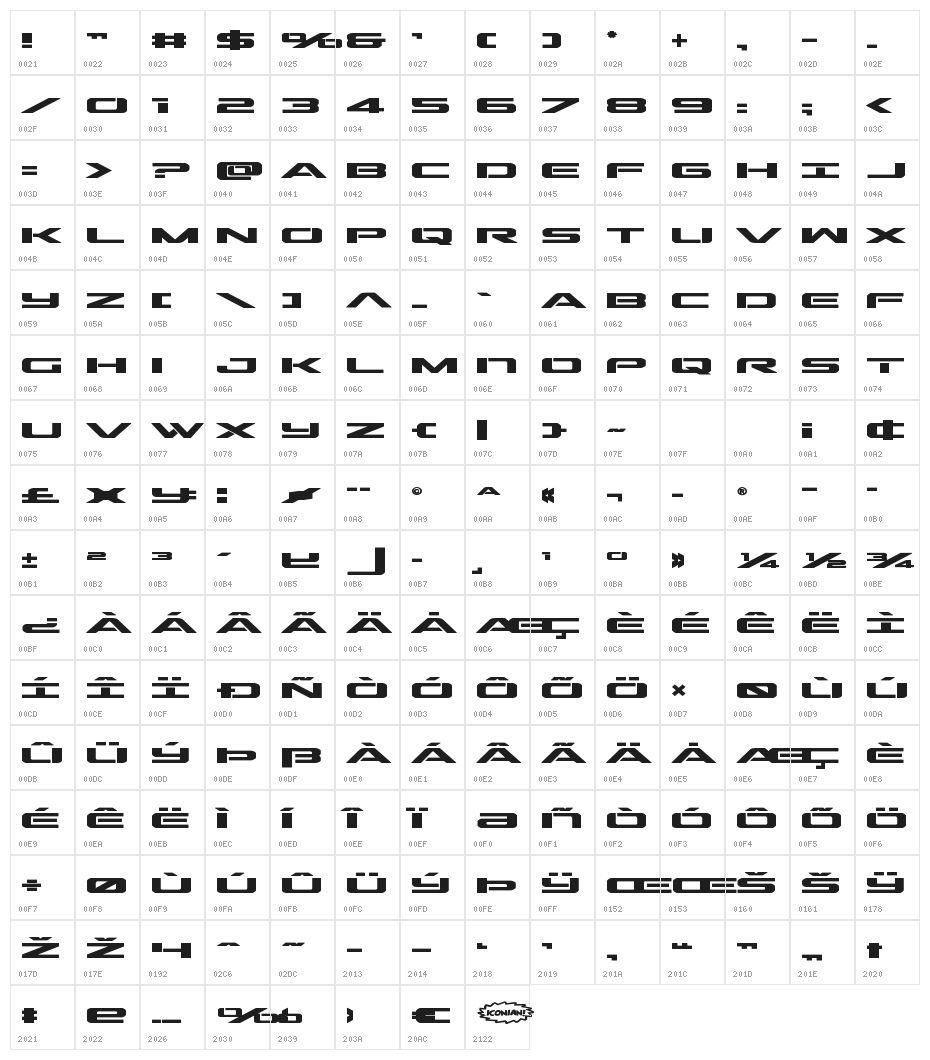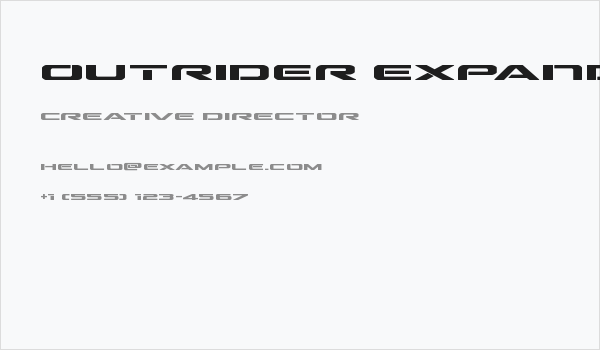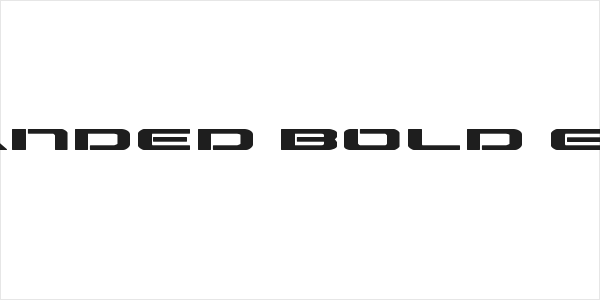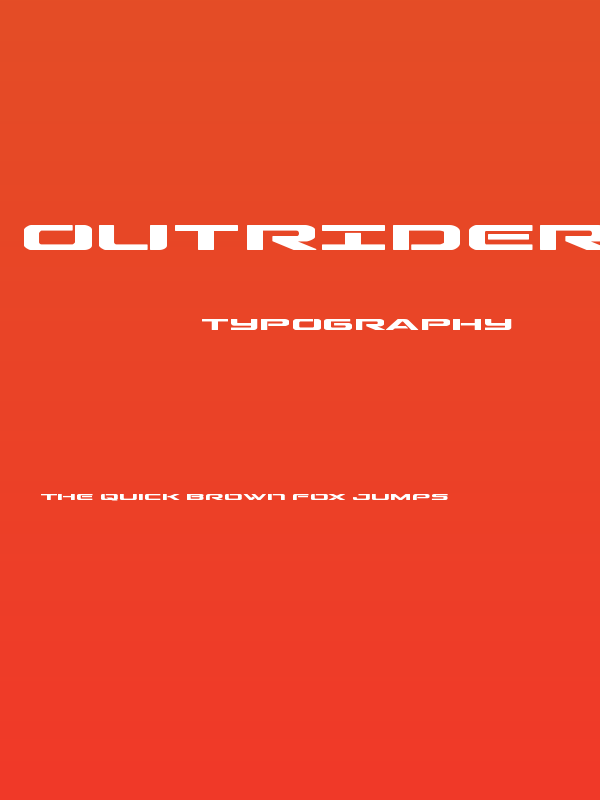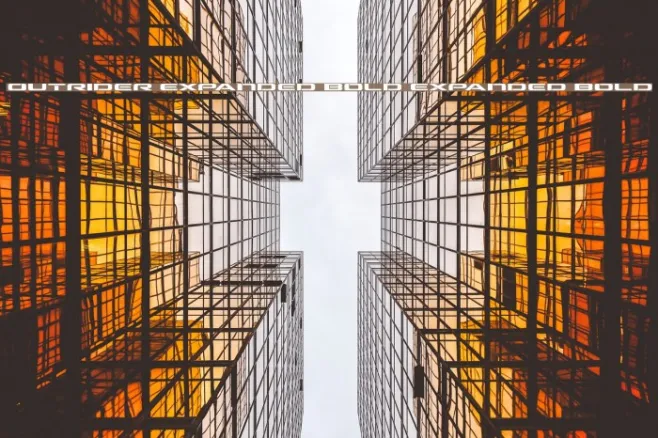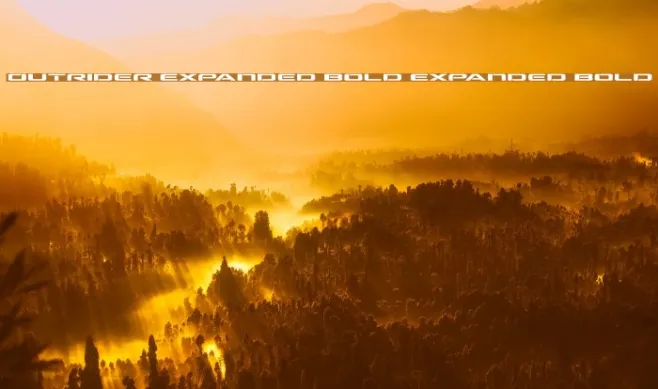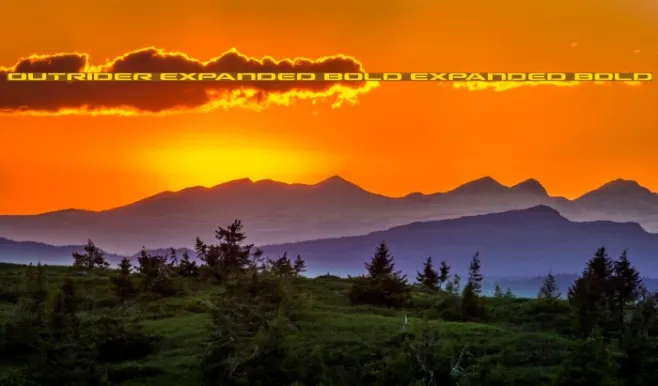
Outrider Expanded Bold Font
Outrider Expanded Bold Description
This font features a futuristic and bold design with expanded letterforms that convey a sense of modernity and strength. The characters are wide and have a geometric structure, with sharp angles and clean lines that create a dynamic and impactful appearance. The uppercase and lowercase letters maintain a consistent style, while the numerals and special characters complement the overall aesthetic. This font is ideal for projects that require a strong visual presence and a contemporary feel.
| Proposed Projects | Ideal for sci-fi themed designs, technology branding, video game titles, and modern advertising campaigns. |